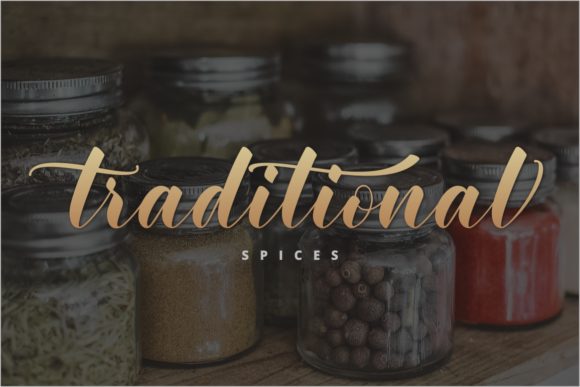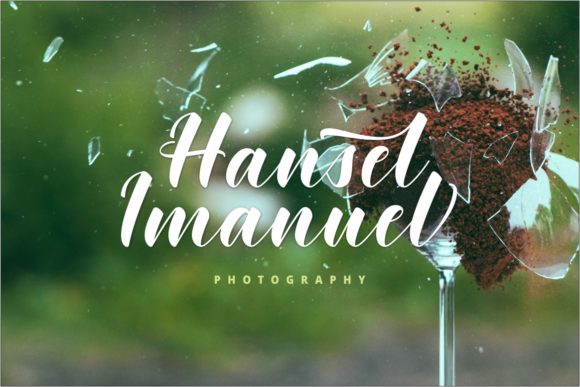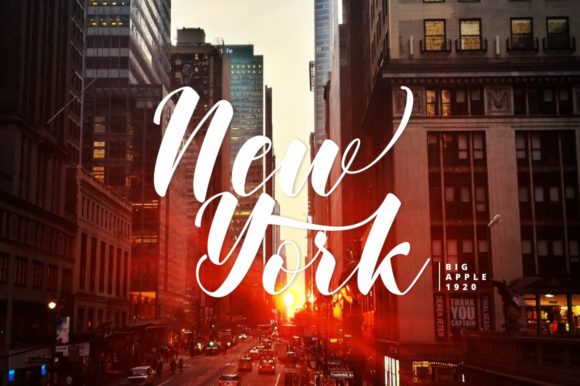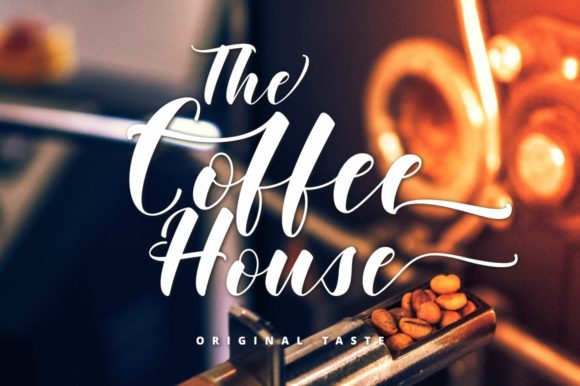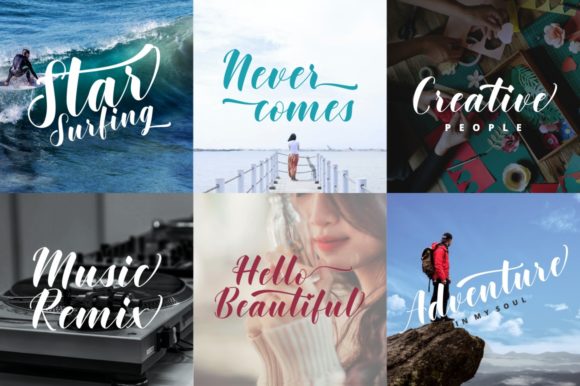
The Perfect Blend of Personality and Style
Have you ever found yourself scribbling down ideas in a notebook, only to have them transform into something truly magical? The moment when your creative vision starts to take shape, and the words begin to flow, is one of the most exhilarating feelings as a designer. It’s this same spark that Khinta Script Font is designed to ignite in your next design project.
This fun, bold, and adventurous handwritten font comes with a cool twist that’s sure to elevate any design. Whether you’re working on a personal branding project or creating a social media campaign, Khinta Script Font adds a personal touch that’s hard to replicate with more generic fonts. As a designer, you know that the right font can make all the difference in conveying your message and capturing your audience’s attention.
- Unique Characteristics: This script font features a beautiful, elegant, and flowing design with intricate details and swashes, making it perfect for adding a touch of sophistication to any design project.
Khinta Script Font Review
First impressions matter, and Khinta Script Font has a certain je ne sais quoi ✨. The font’s unique, handwritten style is perfect for those looking for a more personal touch in their designs. The subtle imperfections and varied letterforms make it stand out from more traditional script fonts.
- Excellent for creative, emotive projects ✨
- Works well for headings and titles ✨
- Unique and distinctive style ✨
However, like any font, Khinta Script Font has its limitations ⚠️. Some of these include:
- Lack of legibility at smaller font sizes ⚠️
- May not be suitable for body text or large blocks of copy ⚠️
- Requires careful selection and pairing with other fonts to avoid visual overload ⚠️
Overall, Khinta Script Font is a great choice for designers looking to add some personality to their work. While it may not be the most versatile font, its unique style and emotive qualities make it a great addition to any design arsenal.
The Khinta Script Font is ideal for:
Branding and logos
Typography-based artwork and designs
Any design where a unique, elegant script font is desired